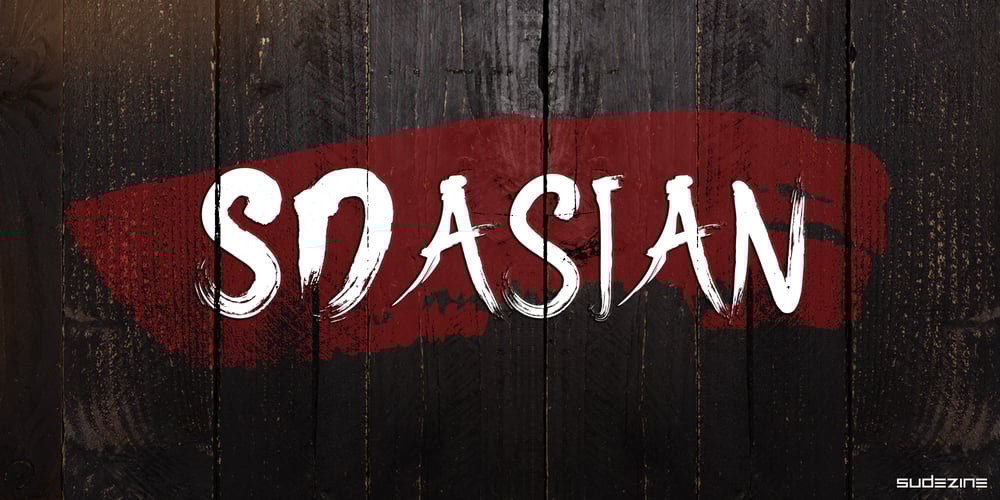
SDAsian Font Family was designed by Suhee Hwang and published by Sudezine. SDAsian contains 2 styles and family package options. SDAisan is a detailed Asian style font- Use logos, quotes, invitations, greeting cards, journals, posters, clothing, and more